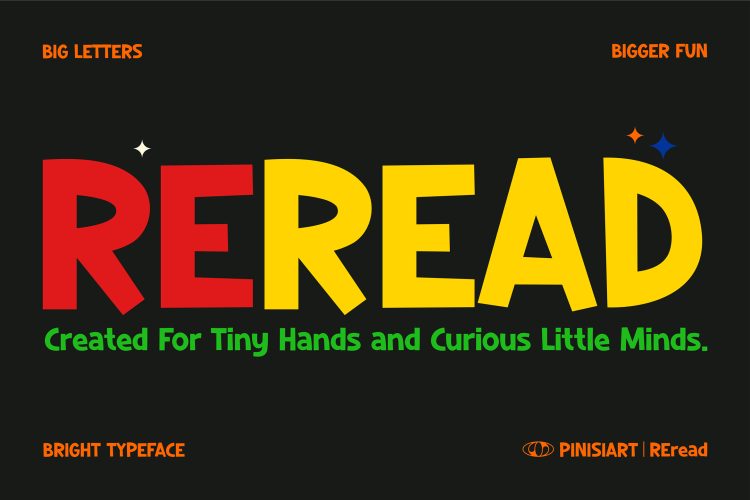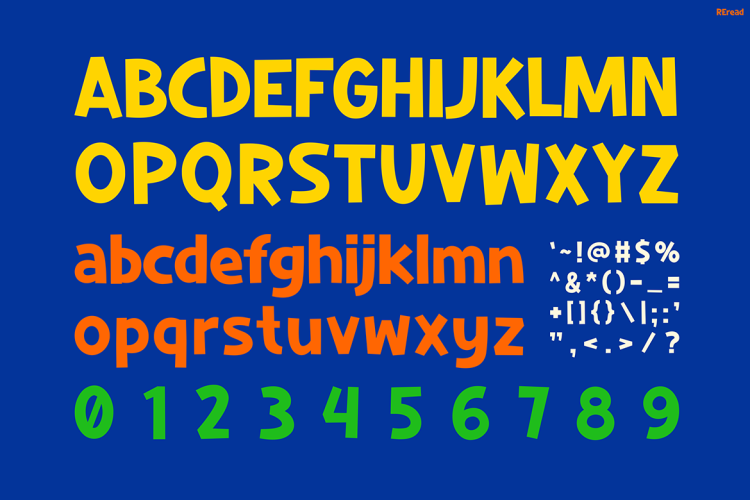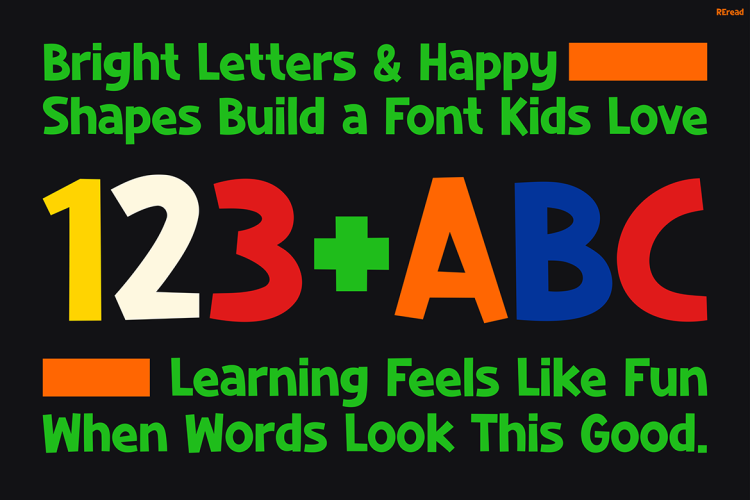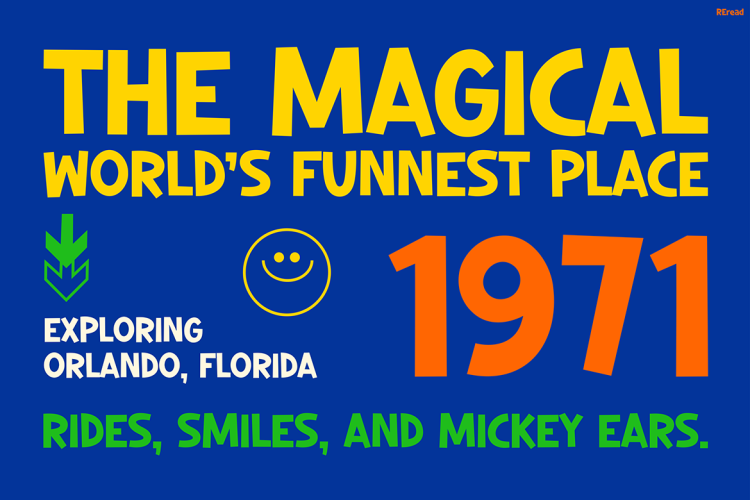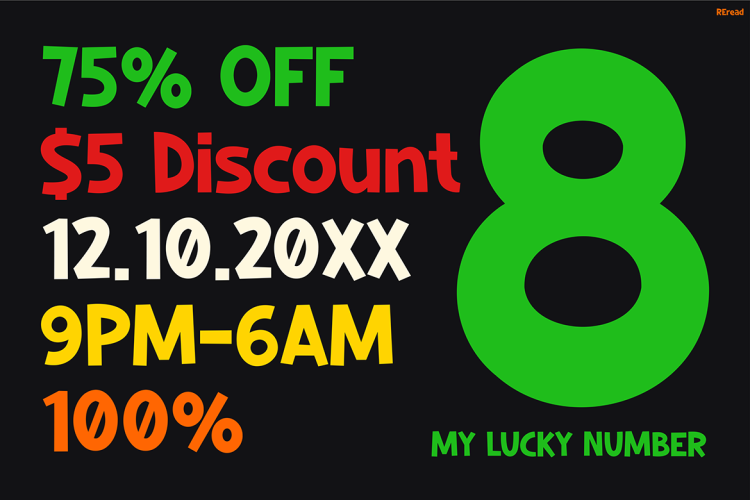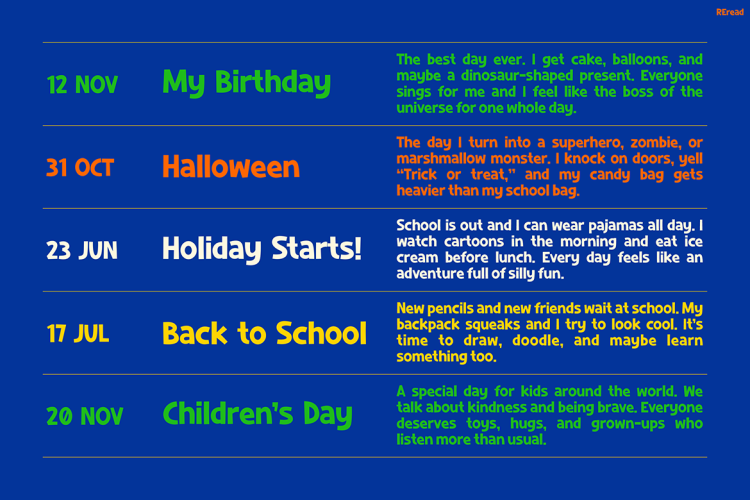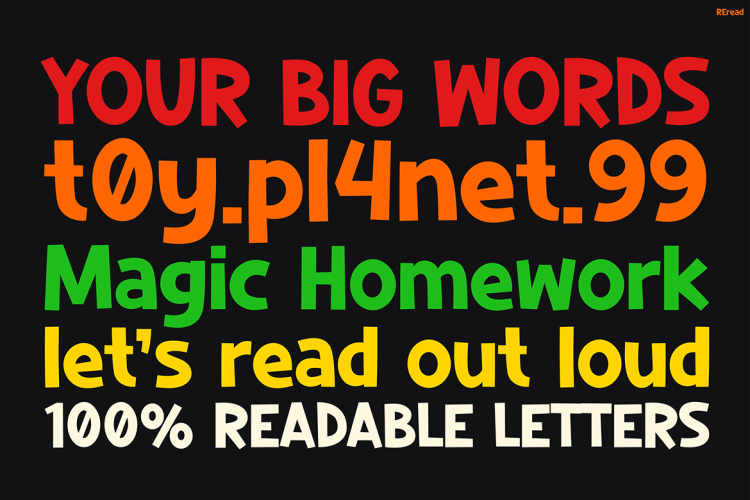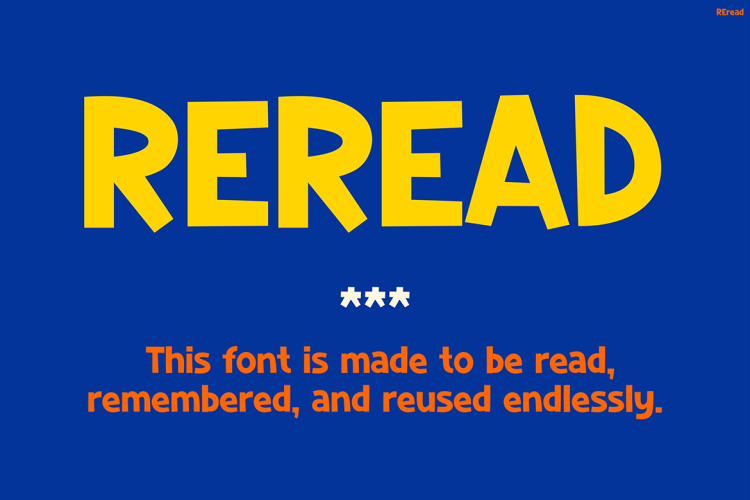
Kids Font Reread is a joyful and highly legible typeface that instantly grabs attention. Designed with tiny readers in mind, it brings energy to every letterform through bouncy shapes, chunky proportions, and a colorful personality. Not only is it fun to look at, but it also helps children recognize letters more easily. With rounded edges and bold structure, this font feels approachable, making learning to read feel like play. Moreover, the quirky alignment and varied stroke widths add charm without sacrificing clarity.
From A to Z and beyond, Kids Font Reread offers more than just lettersโit includes vibrant numerals, punctuation, and icons that keep kids engaged. Whether you’re making a learning tool or a promotional banner, this font adapts beautifully to your creative vision. In addition, it maintains high readability across both print and digital media. Because of its thoughtful design, it’s especially helpful for young readers, including those with early literacy challenges.
Kids Font Reread Who Is It For?
Kids Font Reread is the perfect match for anyone working on child-centered content. Whether you’re an educator, designer, or brand manager, this typeface brings warmth and function to your project.
Teachers can use it for classroom posters, flashcards, and early reader books.
Childrenโs book publishers will find it ideal for engaging headlines and story titles.
Toy and game brands can benefit from its bold, easy-to-read style on packaging.
Educational app developers will appreciate its screen readability for user interfaces.
Event organizers can use it on playful banners, birthday invites, and school event signs.
Even non-profits focusing on early education campaigns can make their messages friendlier and more impactful with this font.
Thanks to its versatility, the font works across various themesโwhether you’re telling magical stories, teaching math, or promoting kindness.
Final Thoughts